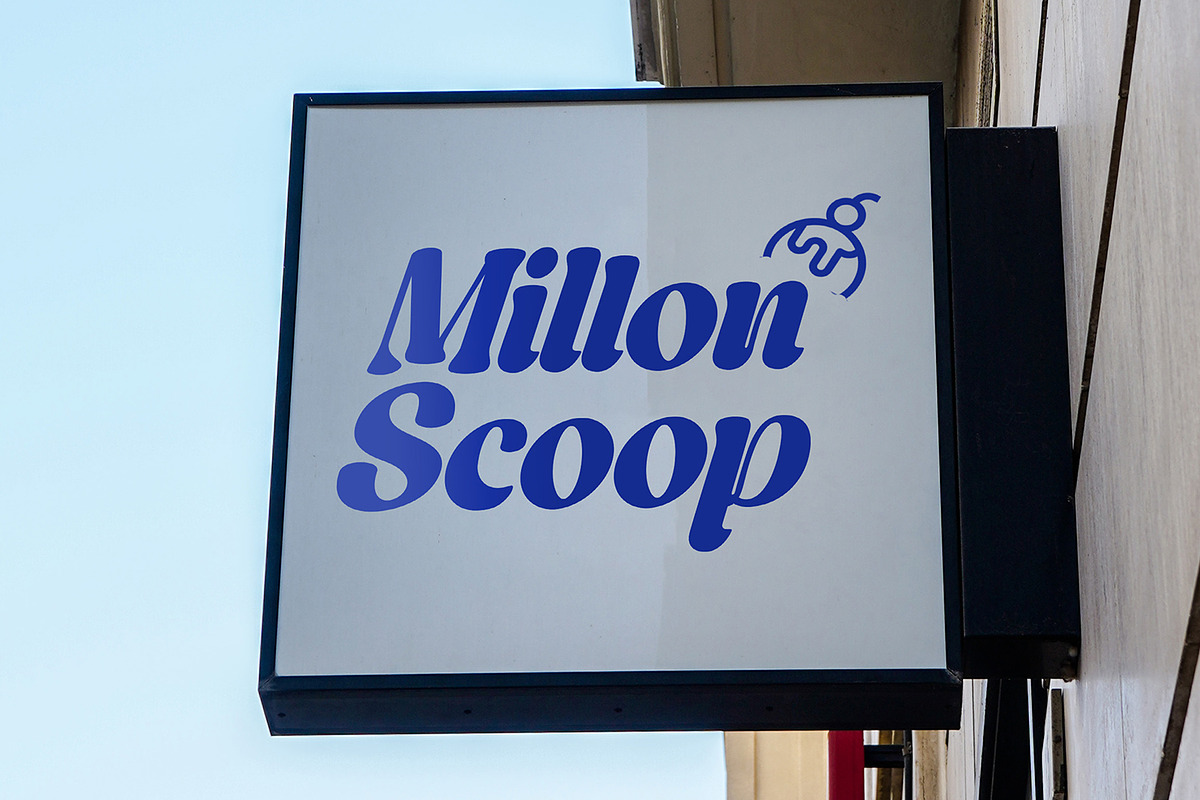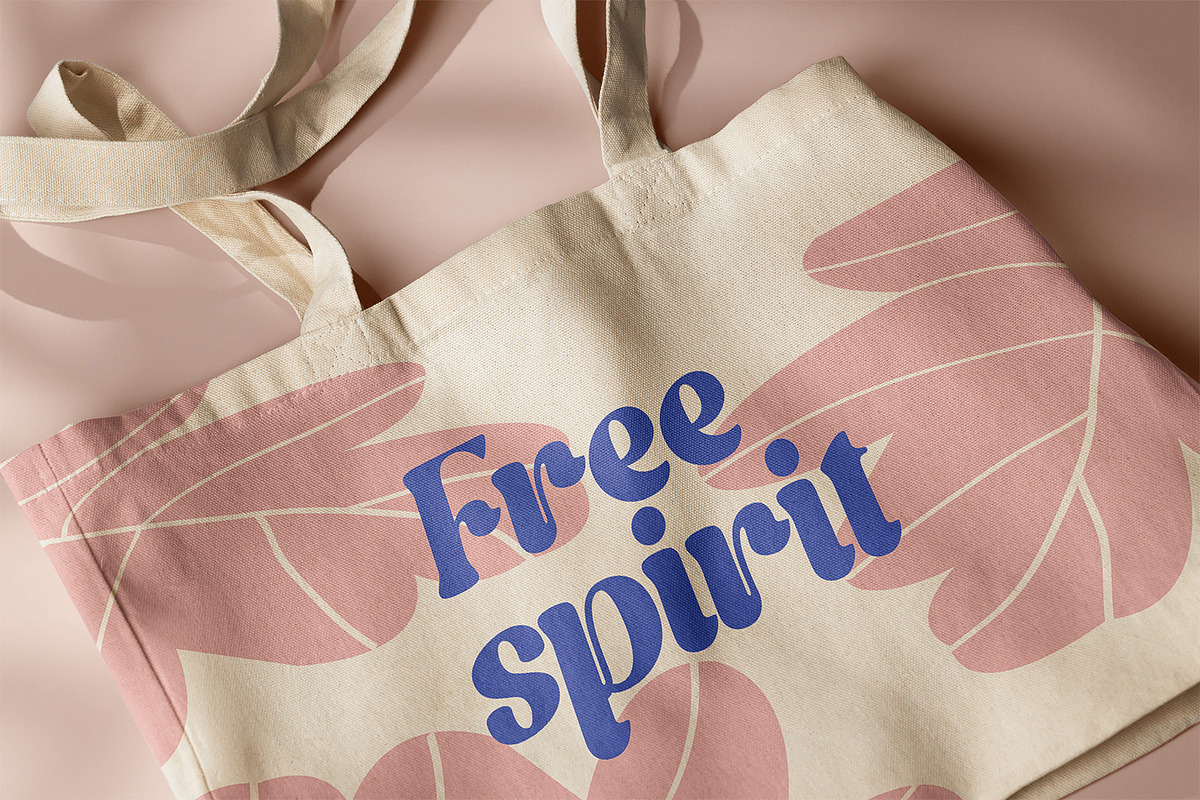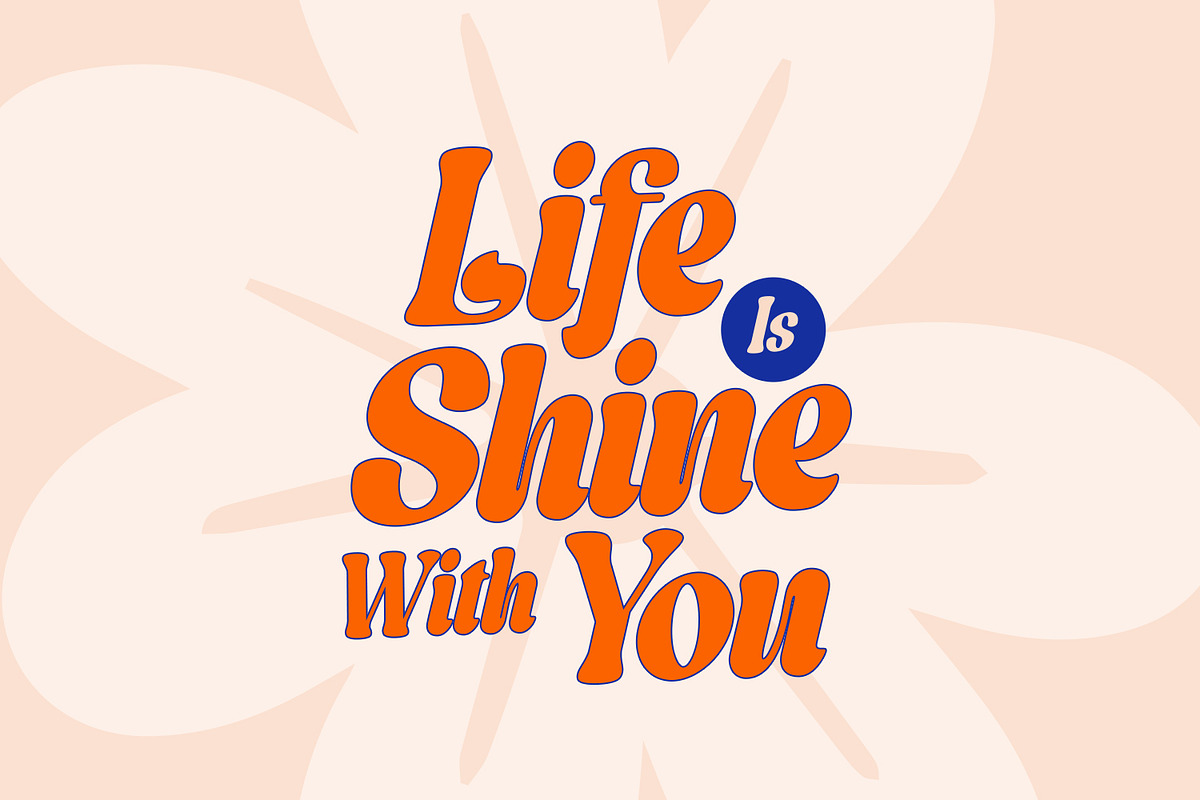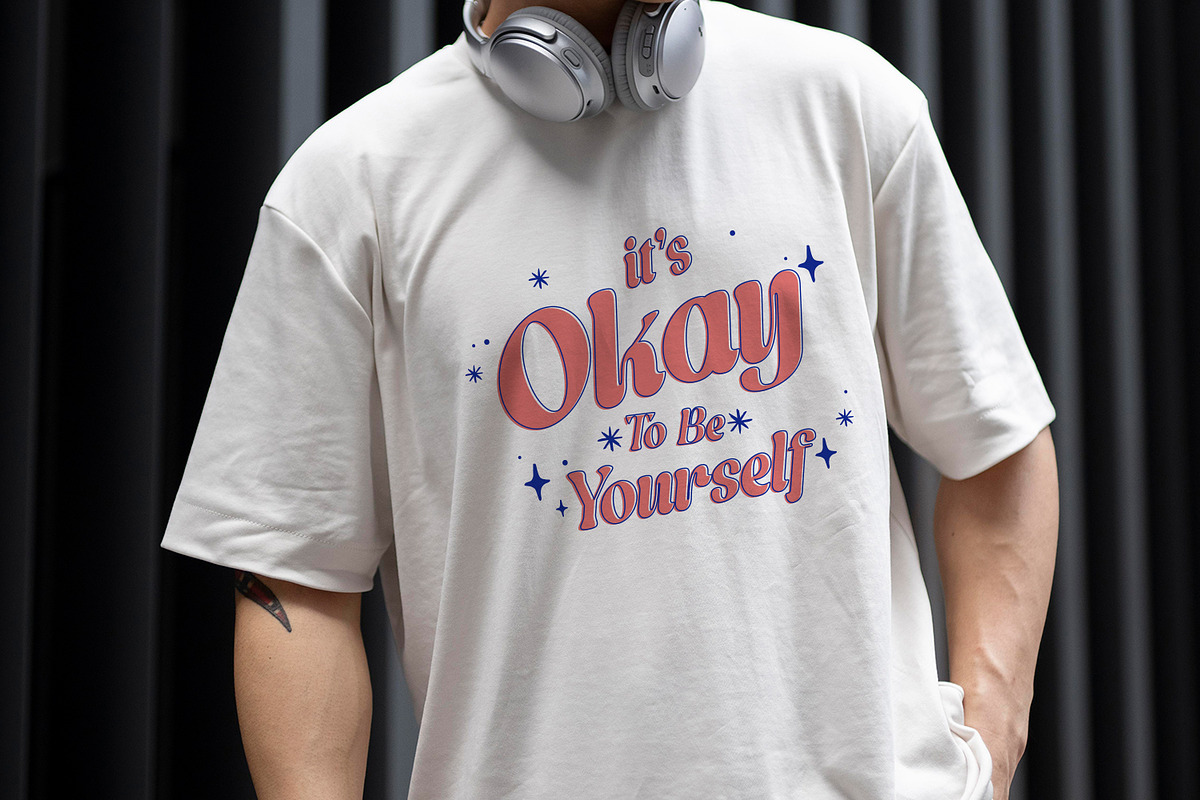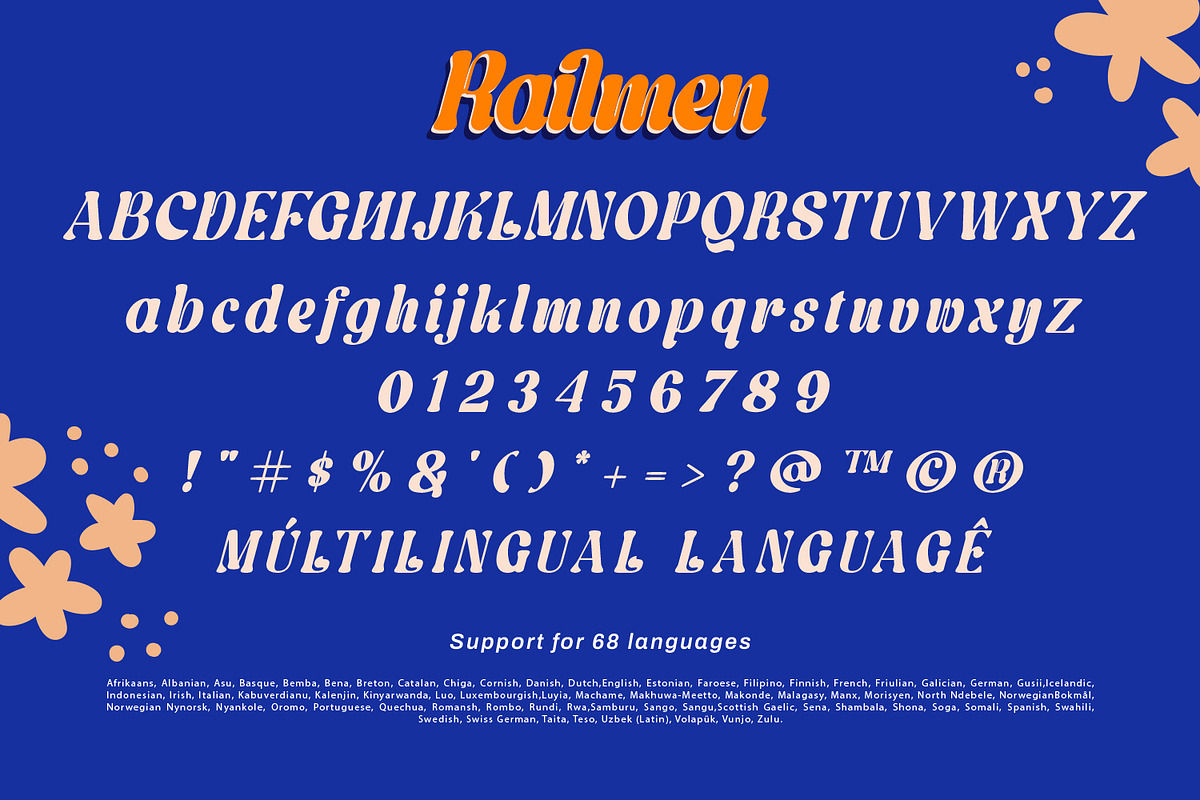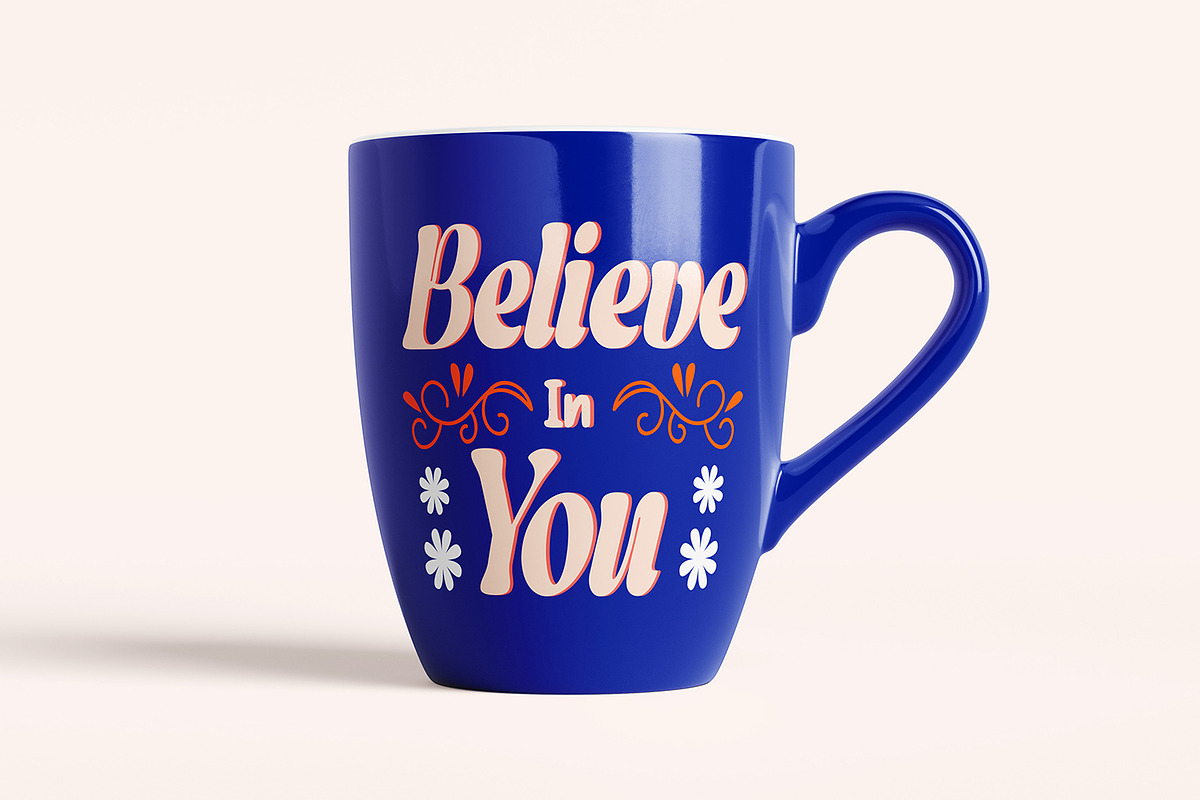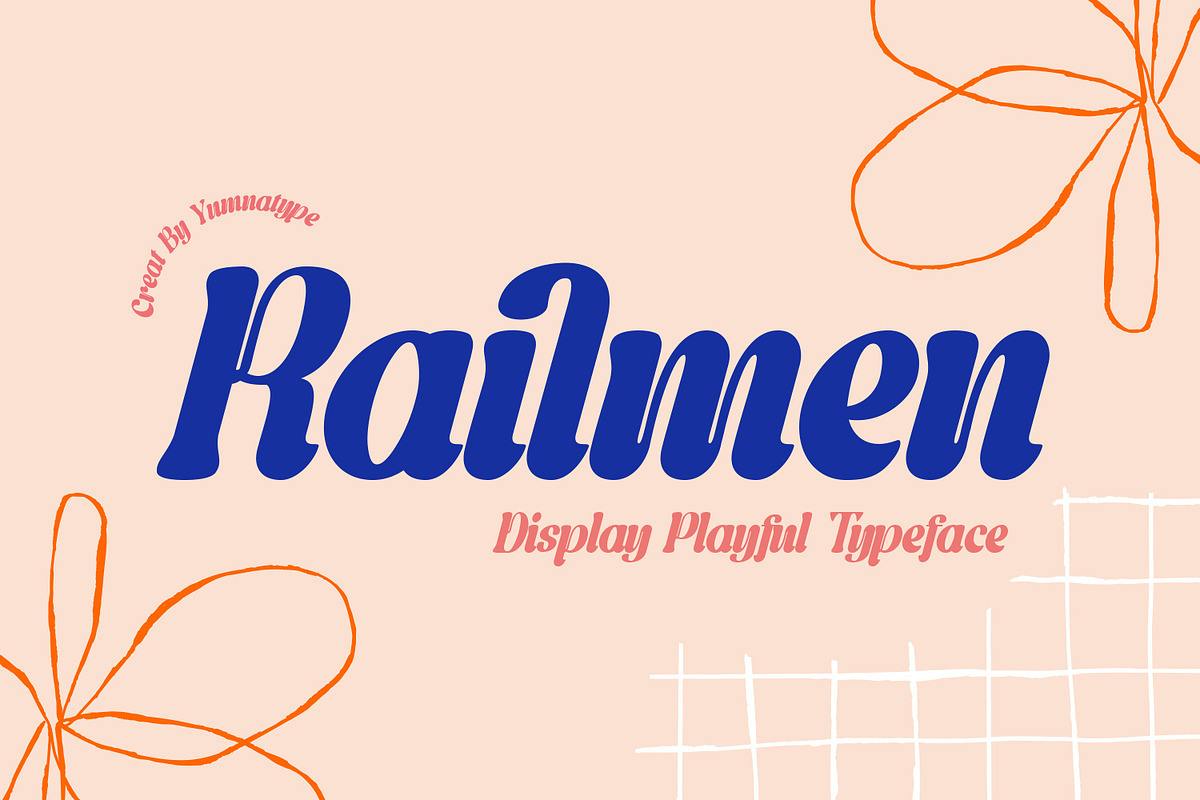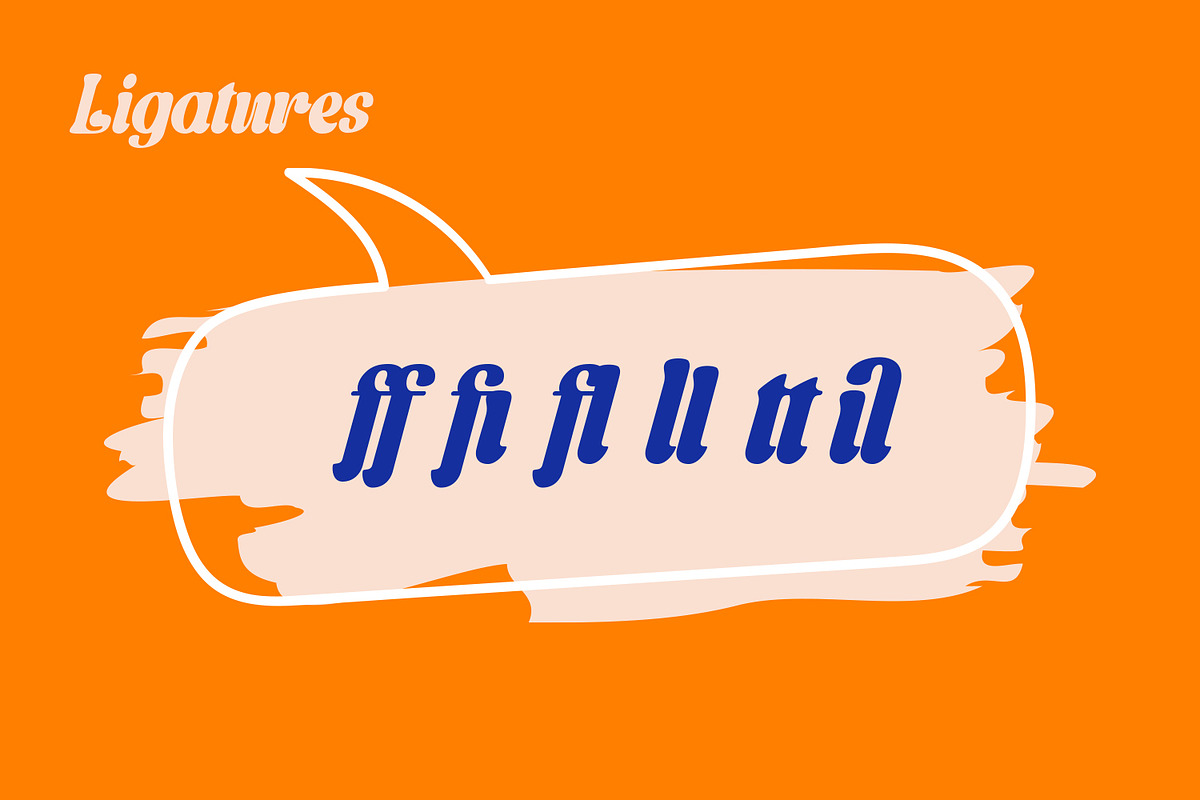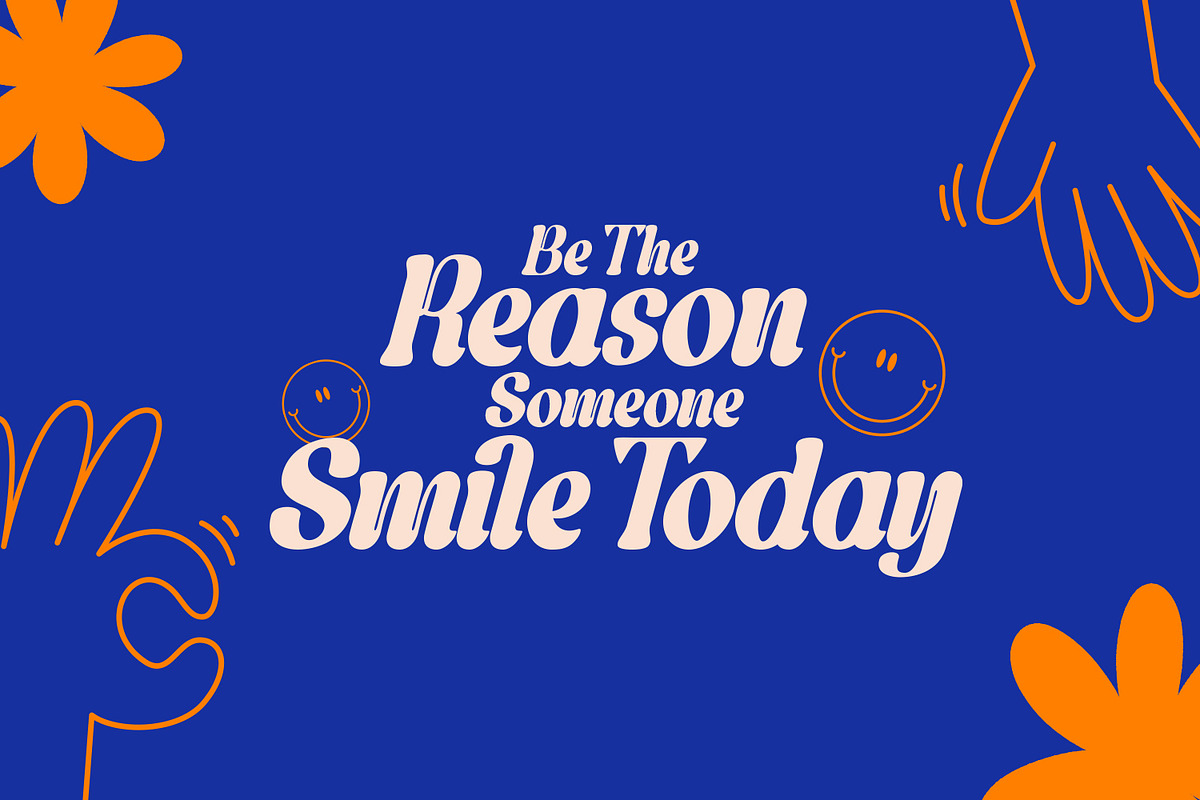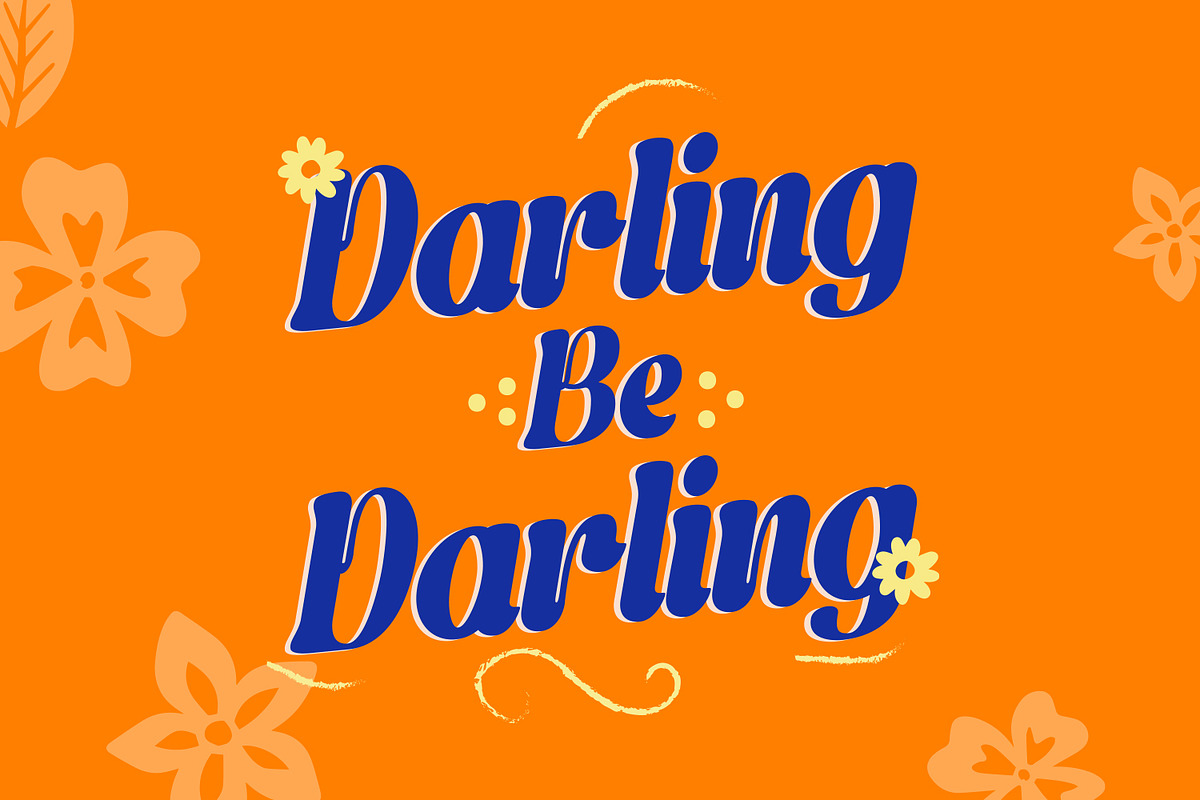
Railmen
Railmen is a delightful display font that exudes warmth and whimsy. With its charming design and dynamic appearance, this font adds a touch of personality and flair to any design project. Each letter in Railmen is crafted with playful shapes and bold strokes, giving it a sense of energy and vitality. The quite thick weight of the font adds to its strong and confident presence, while the high contrast ensures clarity and legibility in any size. In addition, enjoy the features here.
Railmen fits in headlines, logos, posters, flyers, branding materials, print media, editorial layouts, and many more designs. Find out more ways to use this font by taking a look at the font preview.